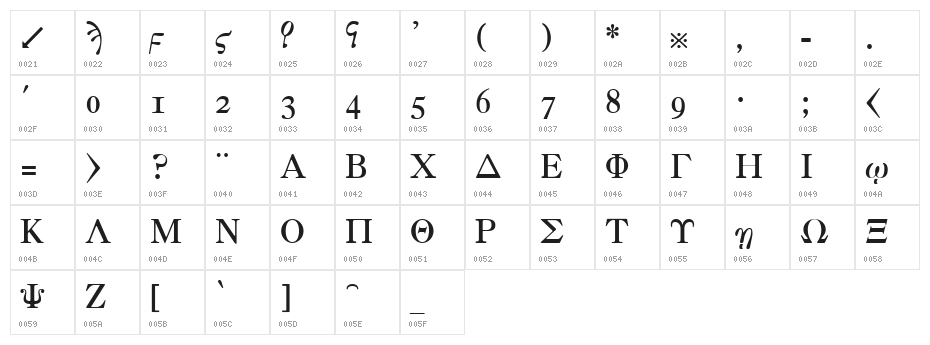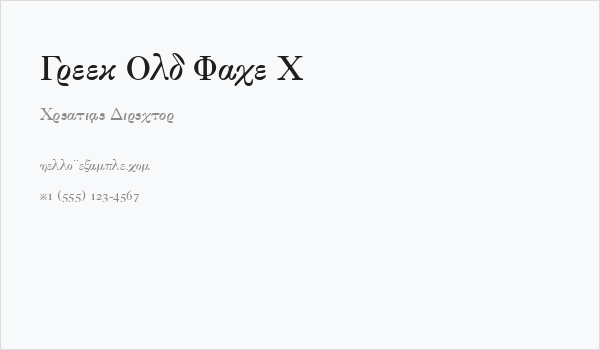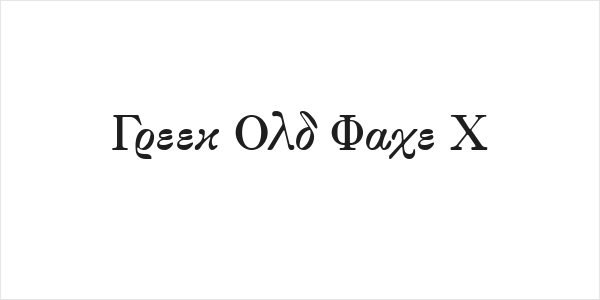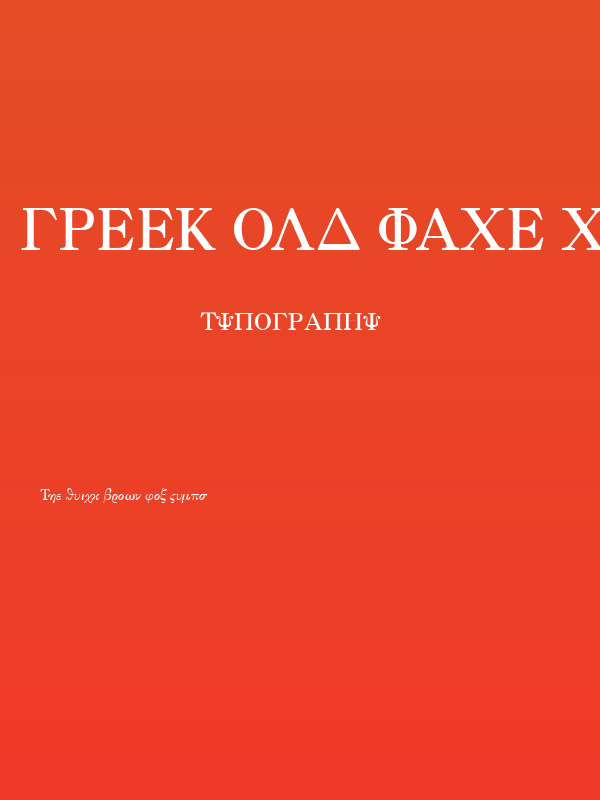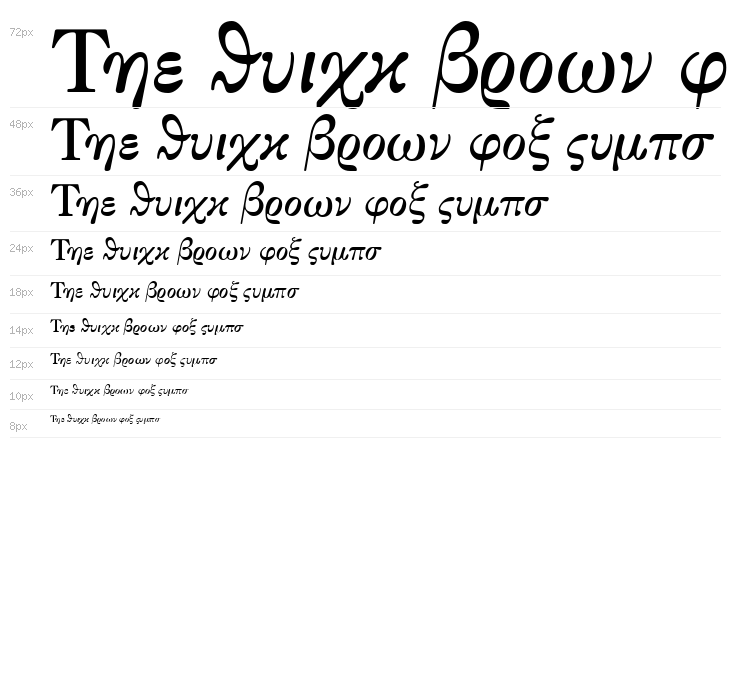
Greek Old Face C Font
Greek Old Face C Description
This font features a classic serif style with a distinct Greek influence, characterized by its elegant and traditional letterforms. The uppercase letters exhibit strong, defined serifs and a balanced proportion, while the lowercase letters maintain a fluid, slightly cursive appearance, adding a touch of sophistication. The numerals are clear and consistent with the overall style, ensuring readability. Special characters are thoughtfully designed to complement the alphabet, maintaining the font's cohesive aesthetic. The font's design is reminiscent of historical Greek typography, making it suitable for projects that require a touch of antiquity and elegance.
| Proposed Projects | Ideal for historical publications, academic papers, cultural event posters, and classical literature covers. |